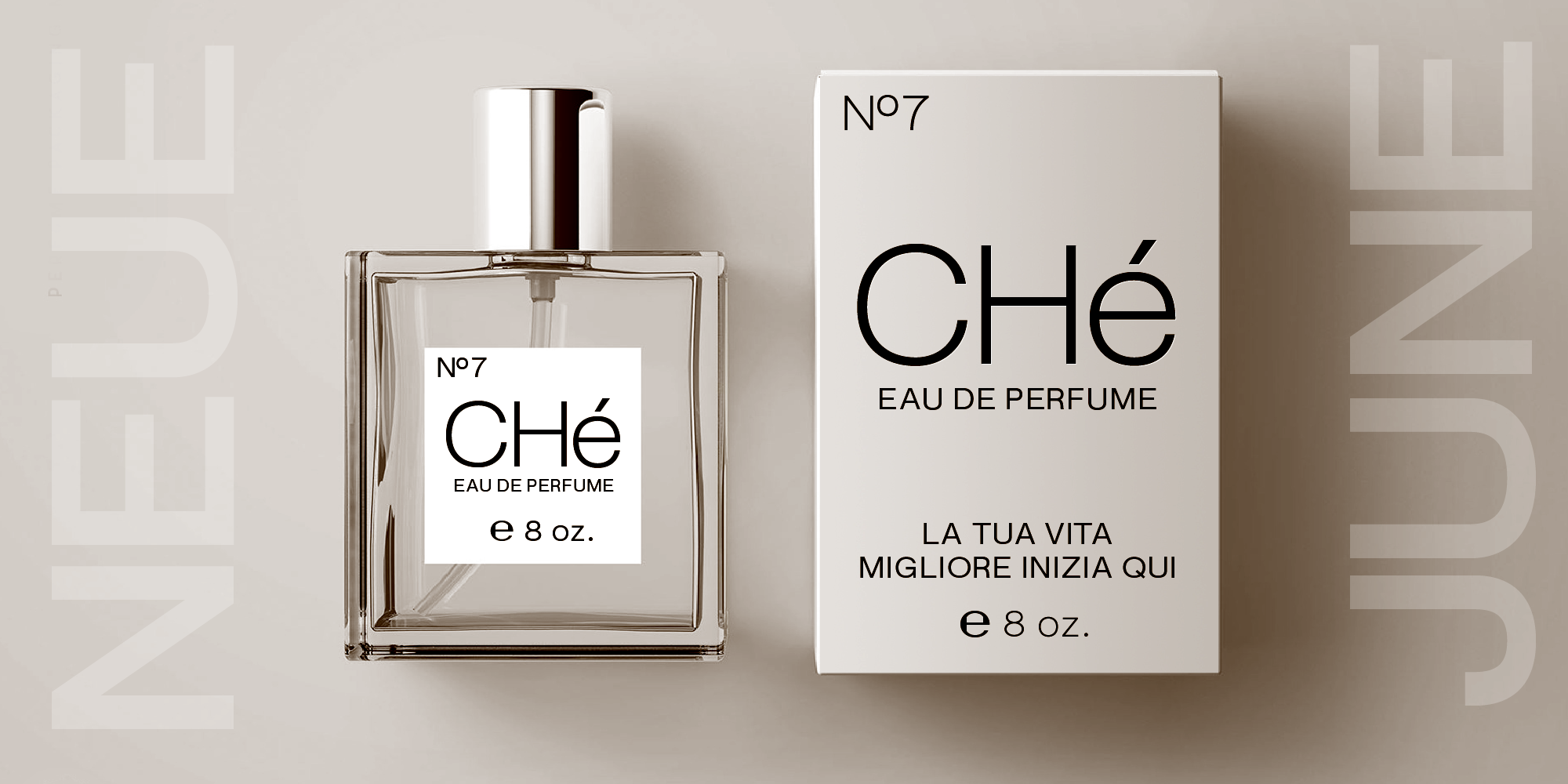
Four years of development imbue Neue June with its uniquely crafted high x-height, enabling designers to literally and figuratively elevate layout designs. In today's highly competitive brand marketplace, readability across communication platforms and memorability go hand in hand towards target audience retention. Neue June comes in six weights, from elegant thin to full-bodied emphatic bold, plus italics. 12 fonts for $199 $149.25 | |